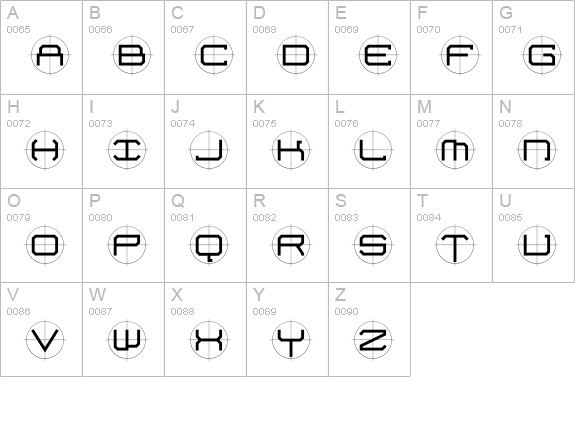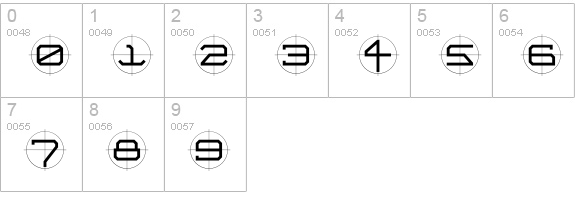
FutureKill-Medium Font Details
FutureKill-Medium is a balanced, medium-weight variant in the FutureKill typeface family \xE2\x80\x94 well suited to sub-headlines, navigation, and balanced editorial work.
Introducing FutureKill-Medium font, a sleek and modern typeface perfect for making a bold statement in your designs. With its futuristic and edgy style, this font is sure to catch the eye and elevate your projects to the next level. The clean lines and sharp angles of FutureKill-Medium exude confidence and sophistication, making it ideal for a wide range of applications. But the best part? FutureKill-Medium is available for free download at FontsMarket.com! Yes, you read that right - you can add this dynamic font to your collection at no cost. Don't miss out on the opportunity to enhance your designs with this versatile and striking typeface. Download FutureKill-Medium today and let your creativity shine!